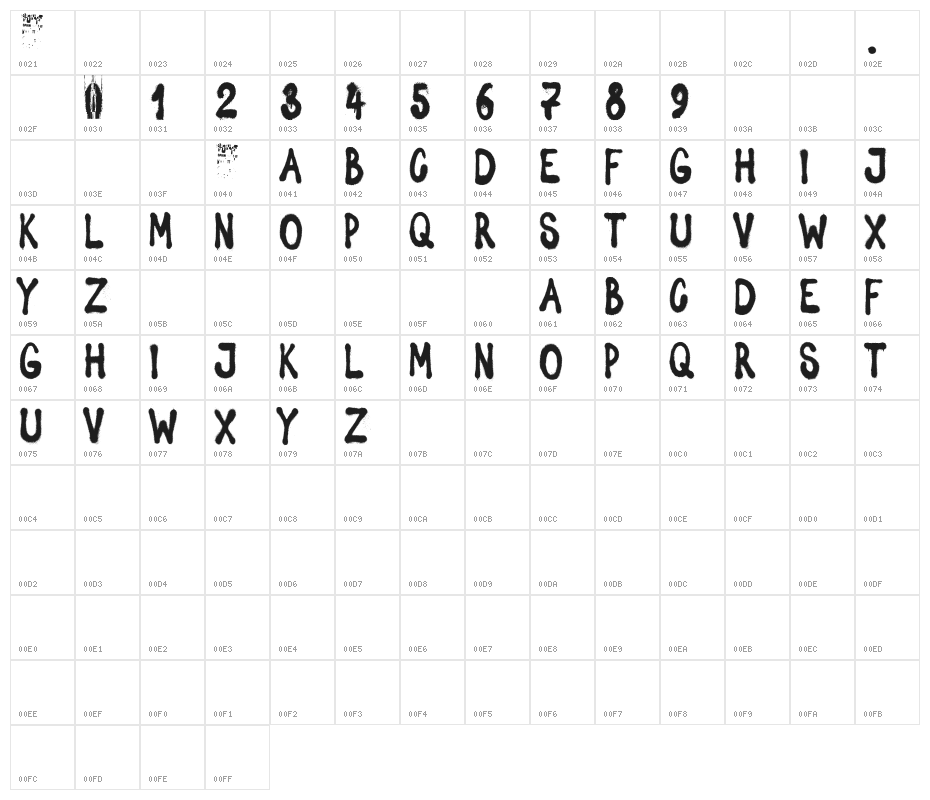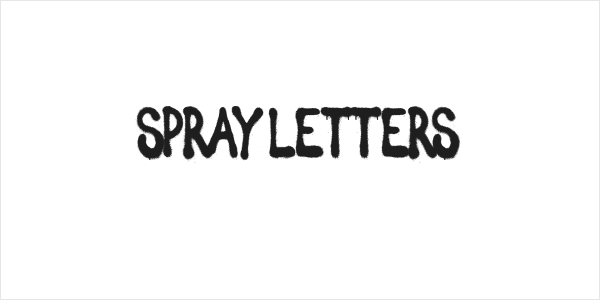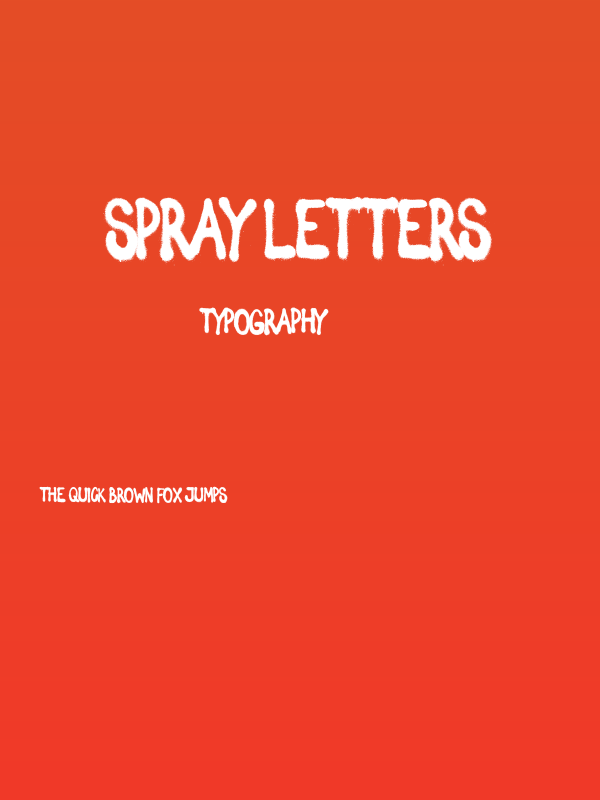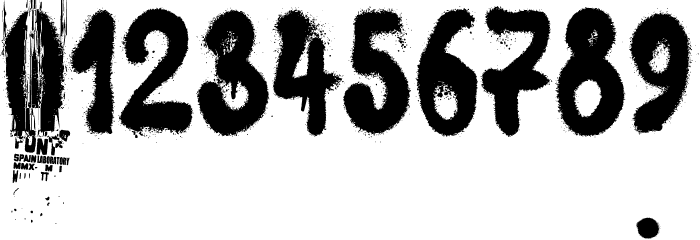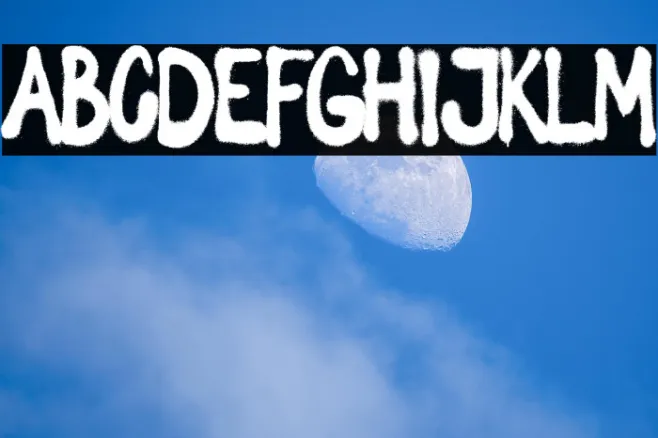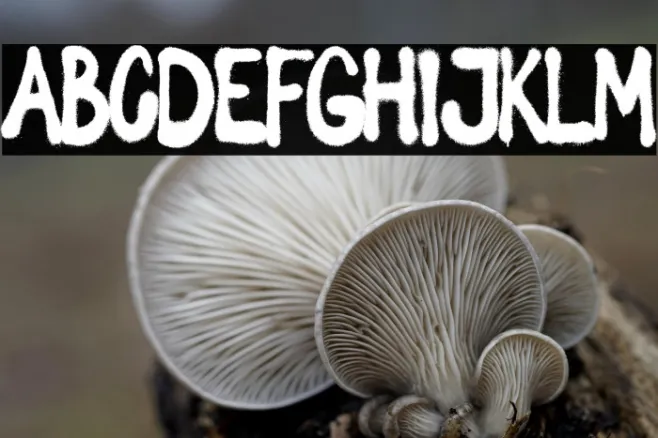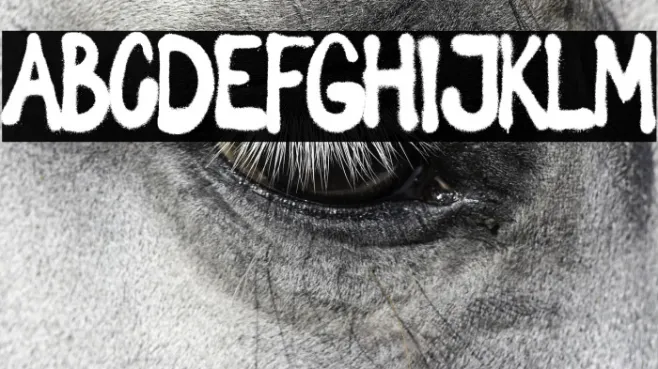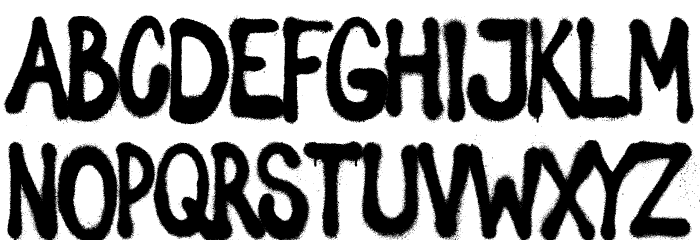
Spray Letters Font
Spray Letters Description
This font features a bold, spray-painted style that mimics the look of graffiti art. The letters are thick and rounded, with a slightly uneven texture that gives them an authentic, hand-sprayed appearance. The uppercase and lowercase letters maintain a consistent style, with the numbers and special characters following suit. The overall look is edgy and urban, perfect for projects that require a street art aesthetic. The font's boldness makes it highly legible, even from a distance, while the unique texture adds a layer of visual interest.
| Overall Style | Urban, Edgy, Graffiti |
| Use Case | Headlines, Posters, Branding |
| Proposed Projects | Ideal for street art designs, urban-themed posters, edgy branding, and music album covers. |